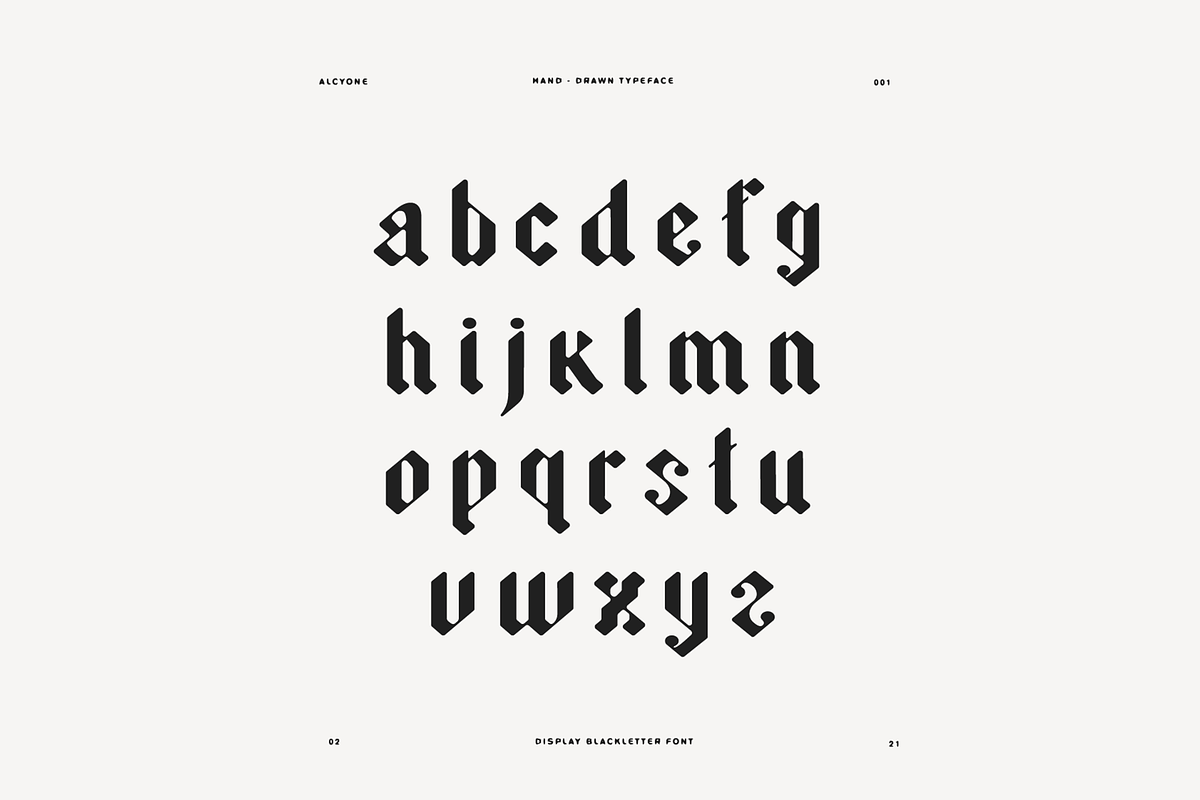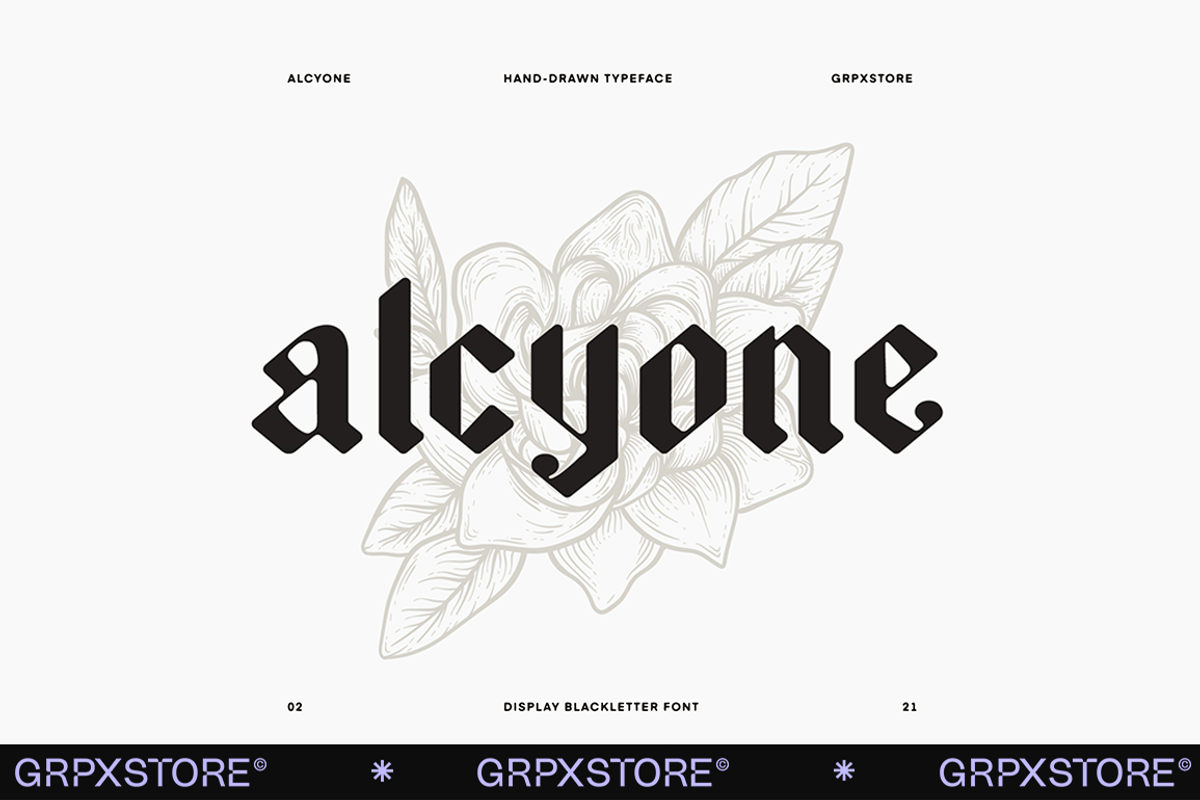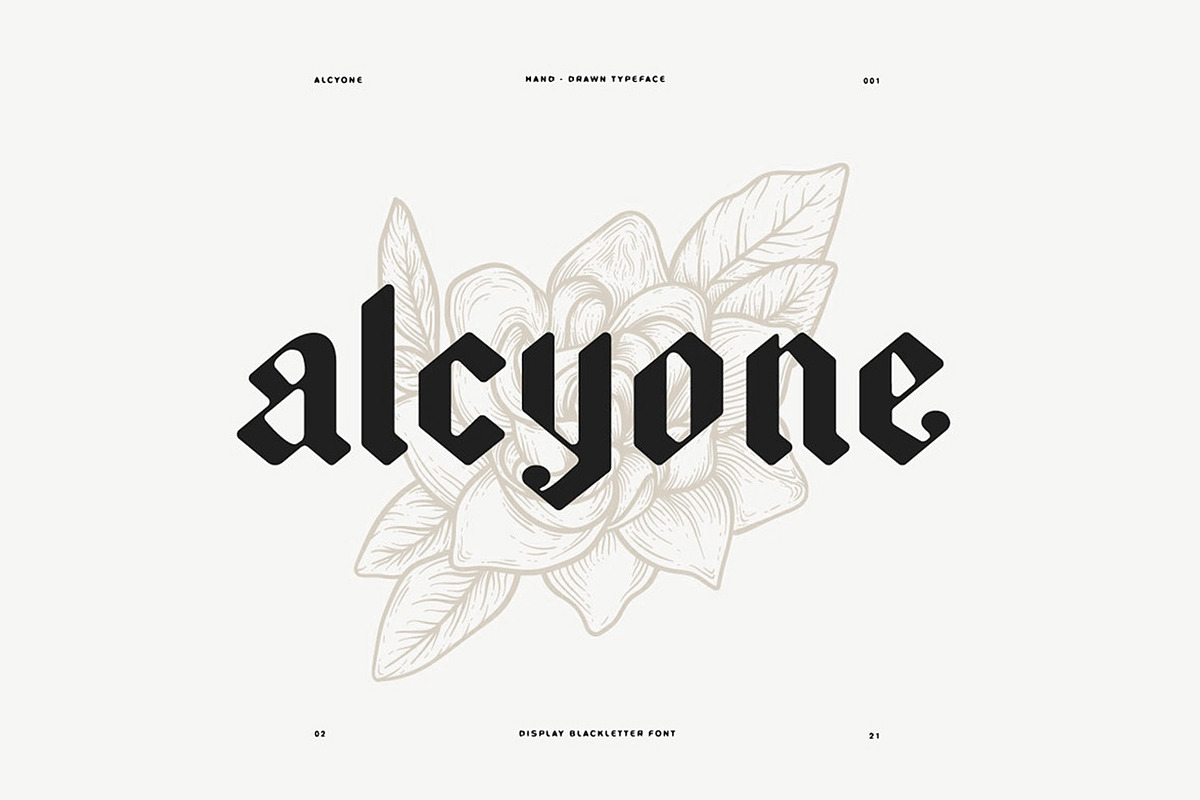
Alcyone Display Font + Illustrations
Alcyone Display Blackletter font + illustrations
Alcyone Display is a fully hand-drawn blackletter inspired font. Contains only lowercase glyphs. Possible updates in the future. Bonus : hand-drawn floral vector outline illustrations.